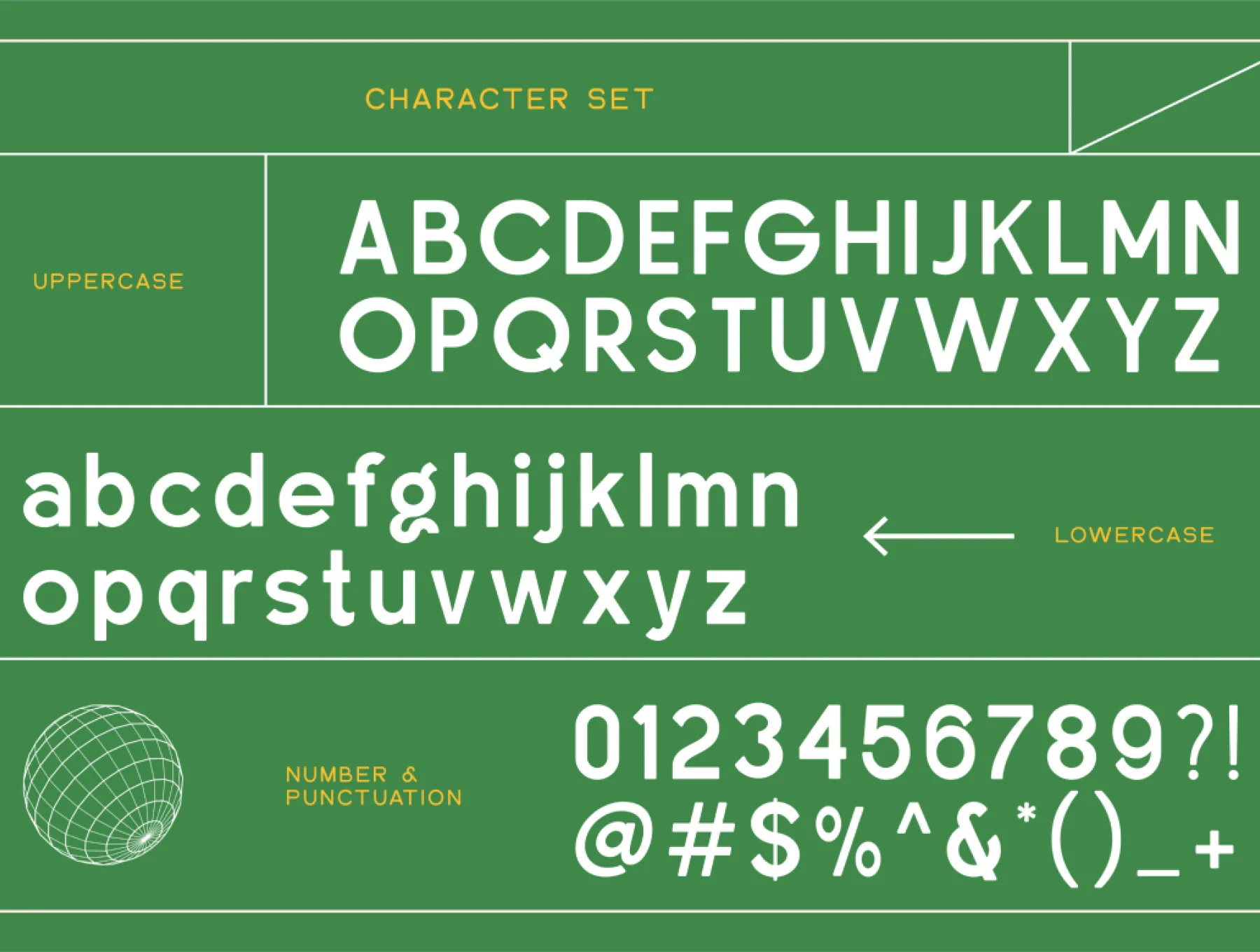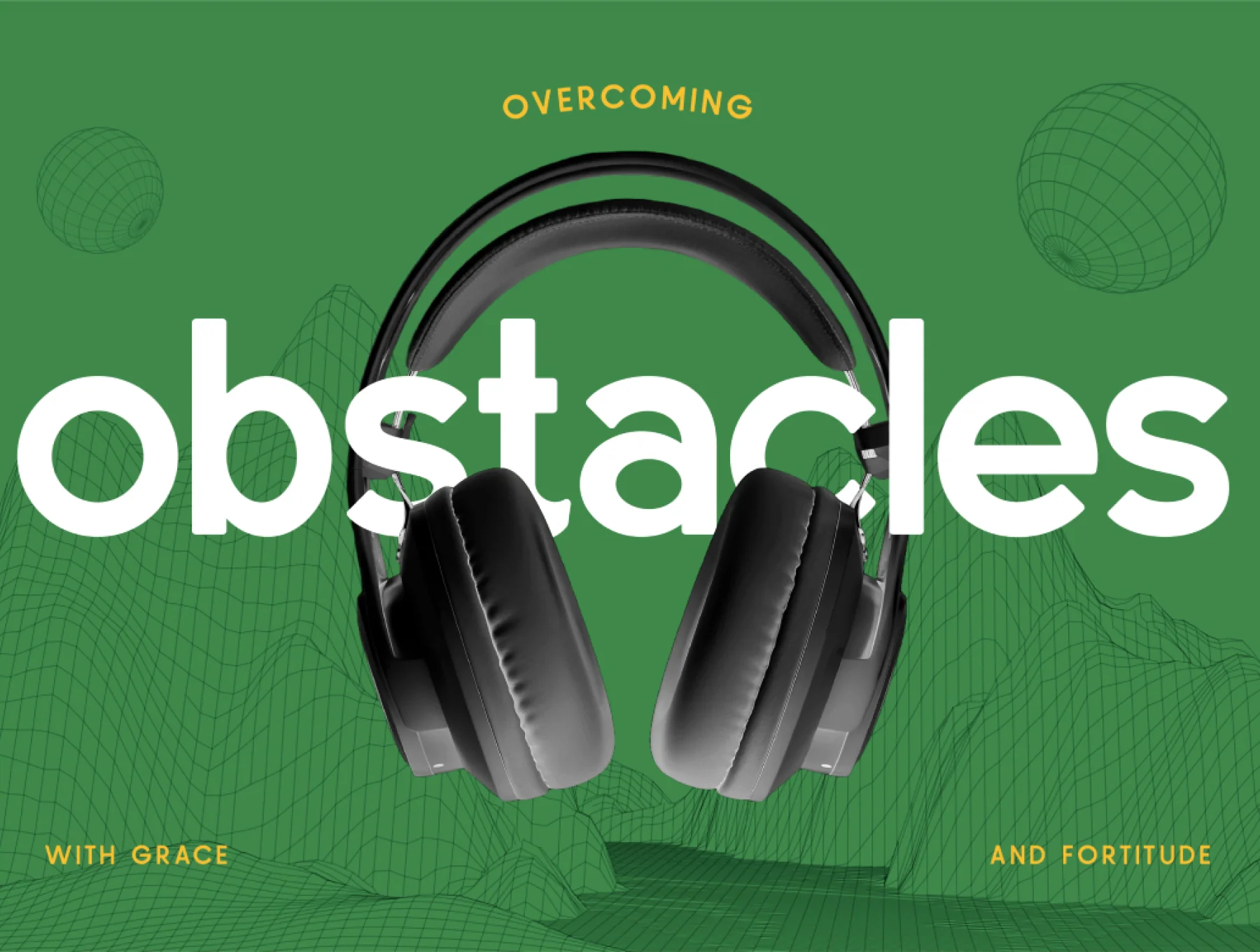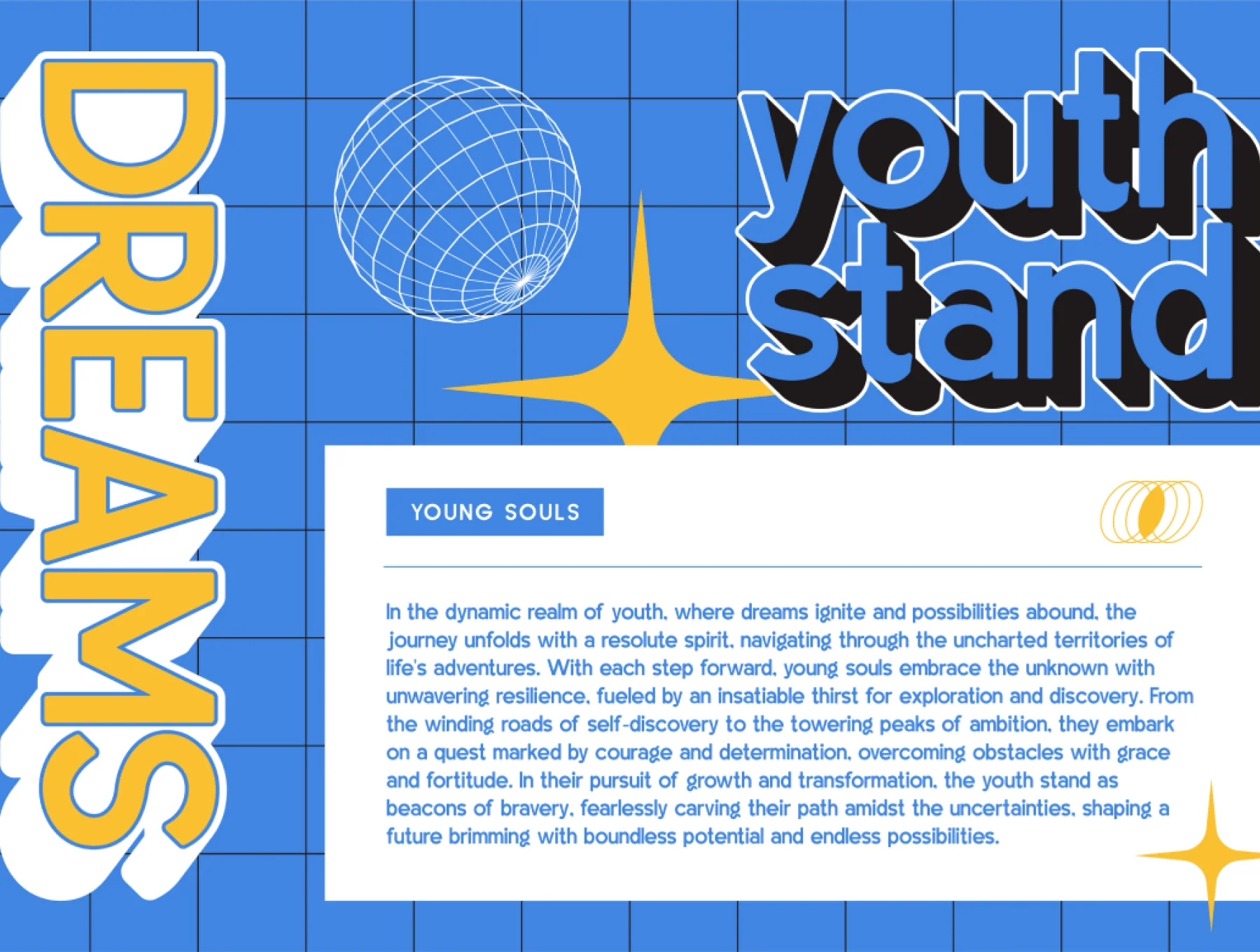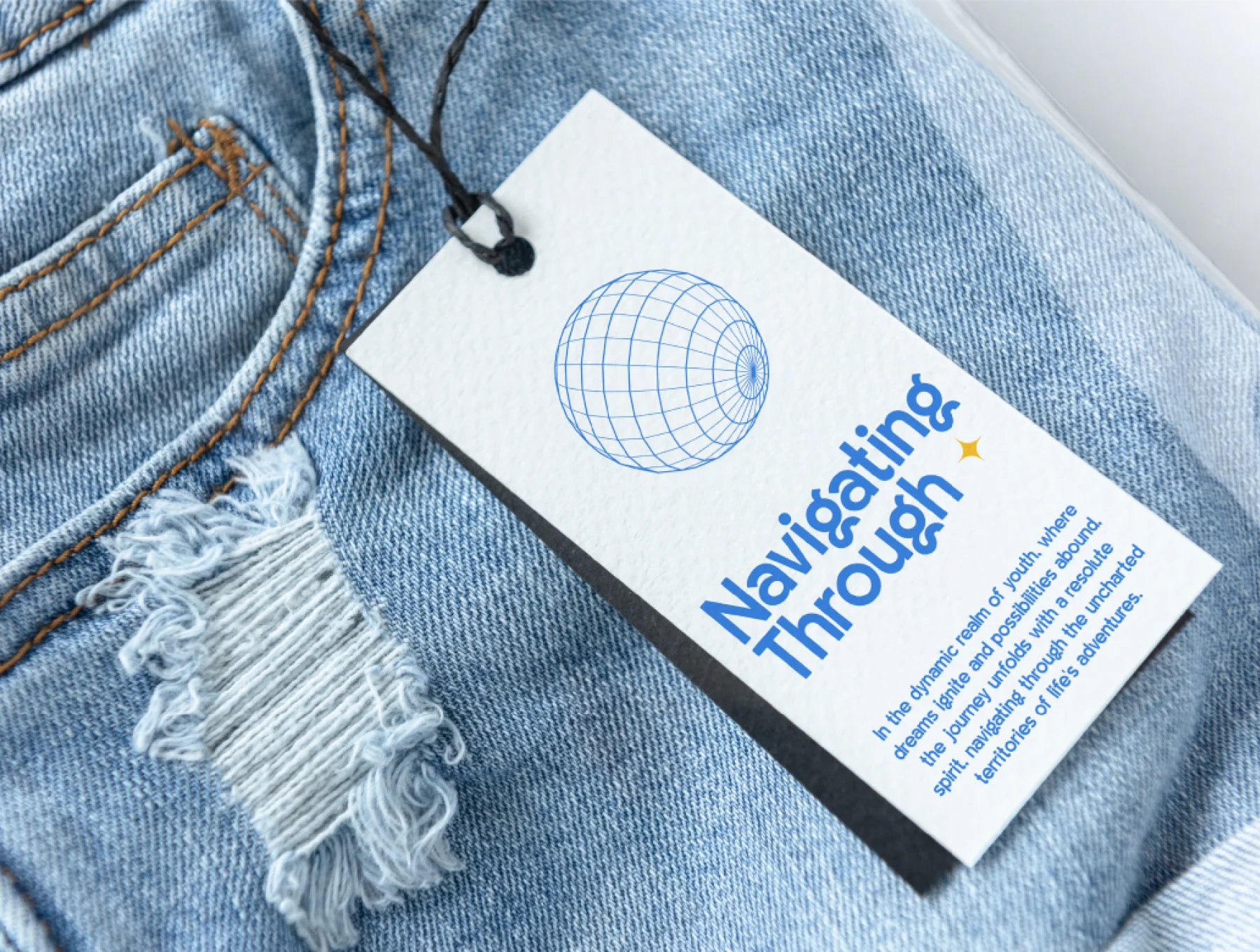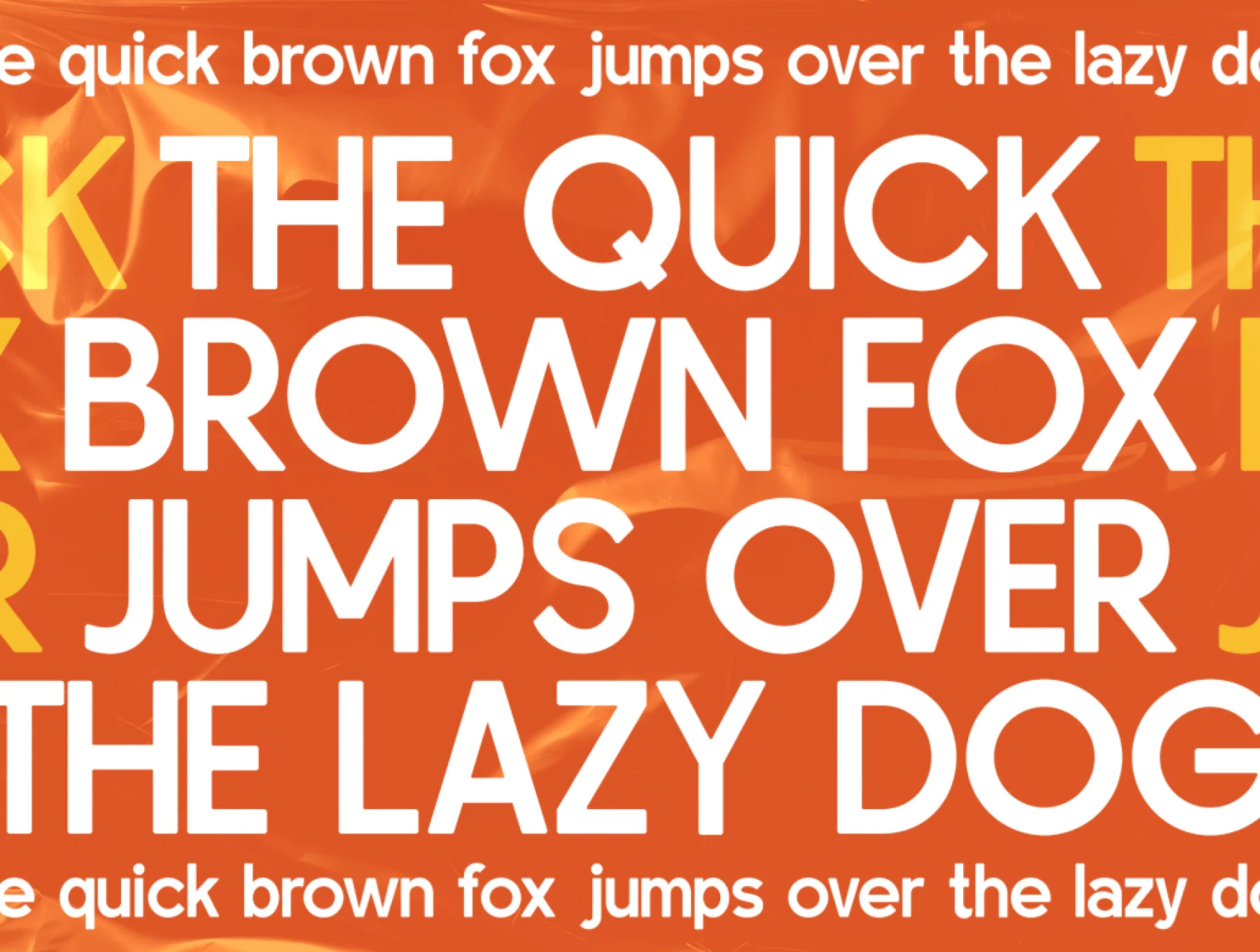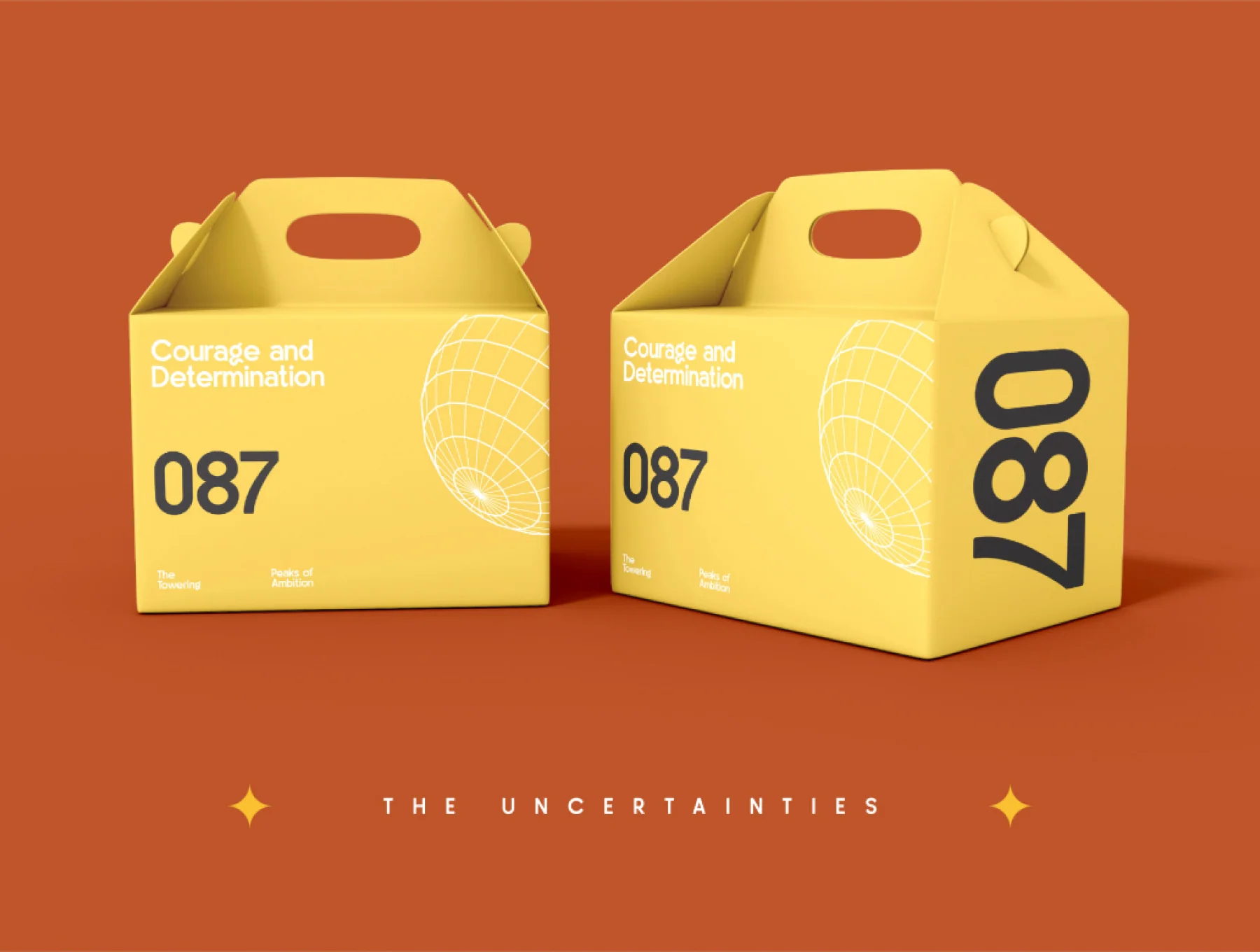
Egeline Sans Serif Display Font
Clean Sans Serif Typeface
Capital and small letters
Ligatures and alternate forms
Egeline is a sans serif display font ideal for quote designs, logos, magazine headers, and more. Includes TTF, OTF, and WOFF formats with uppercase, lowercase, numbers, and punctuation.